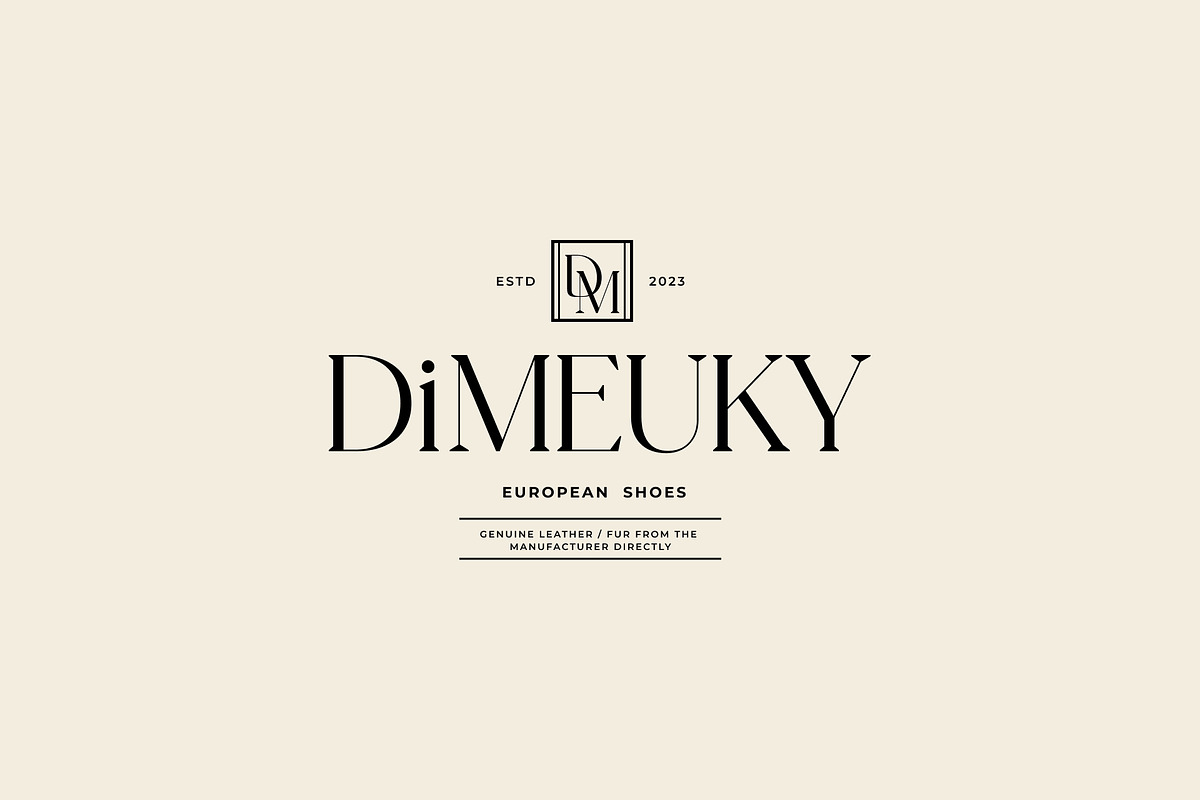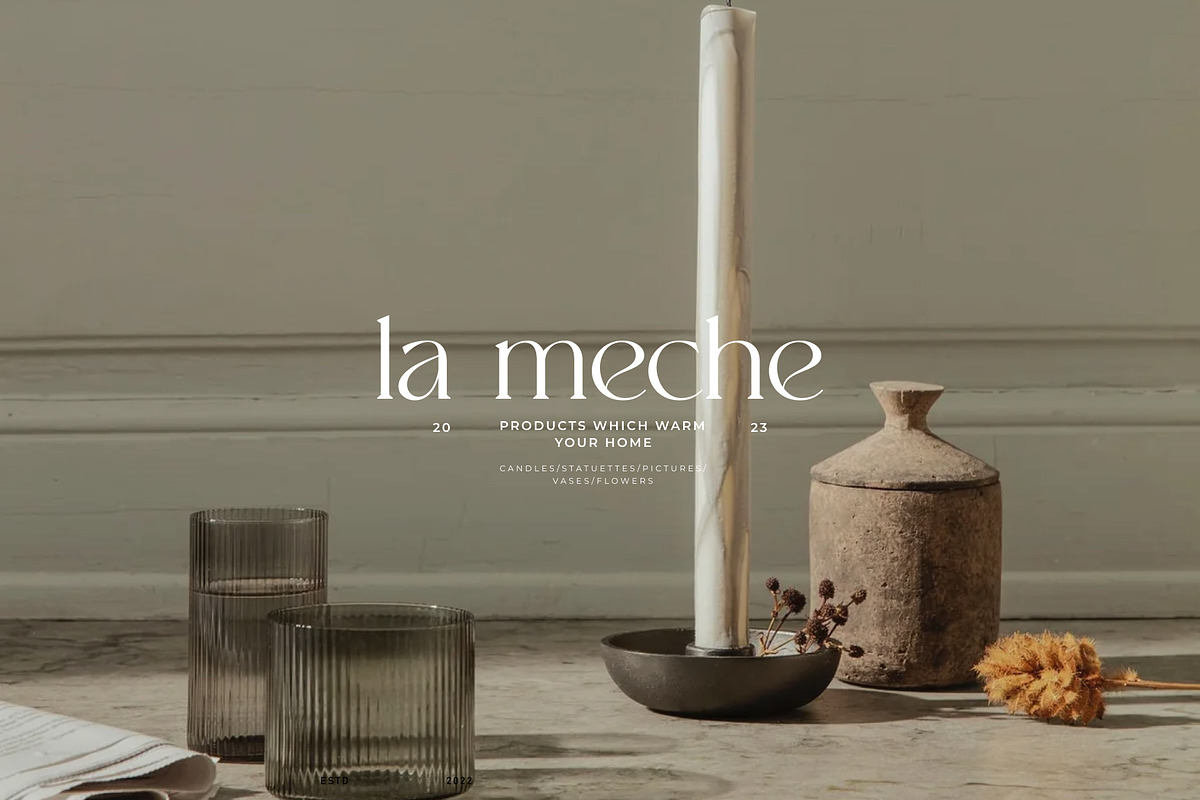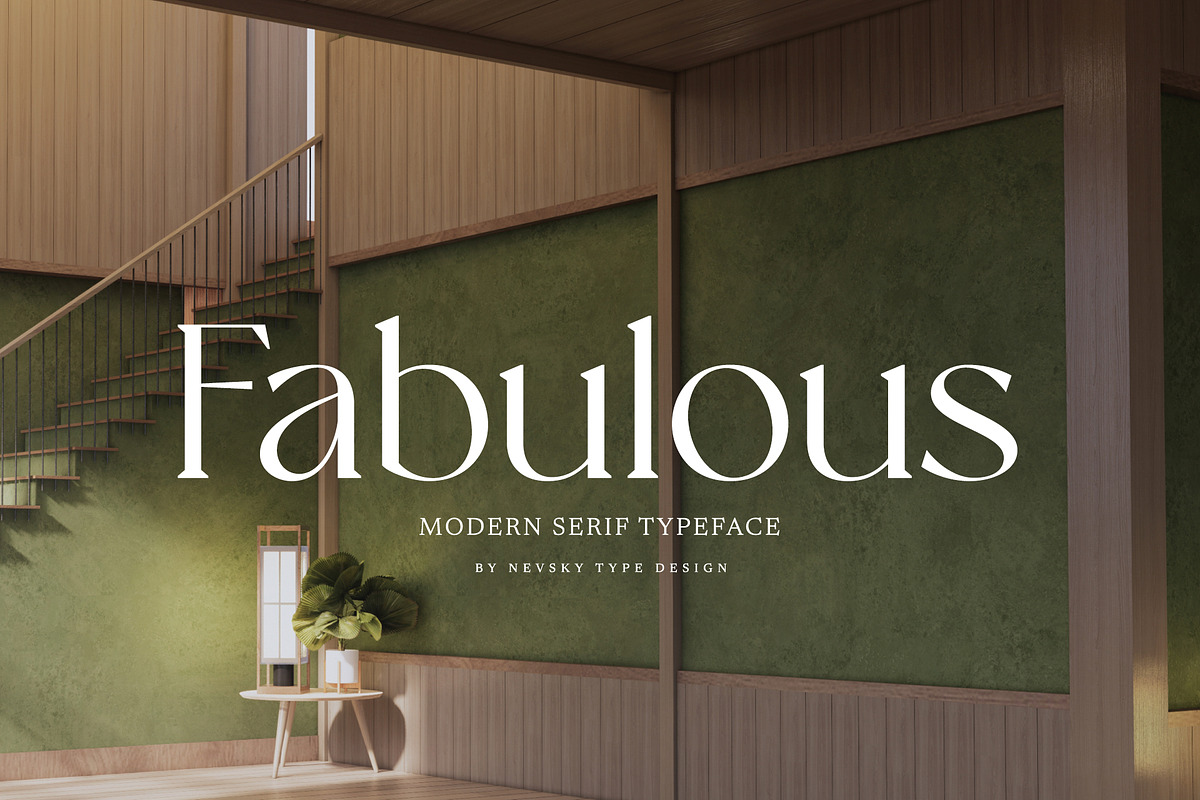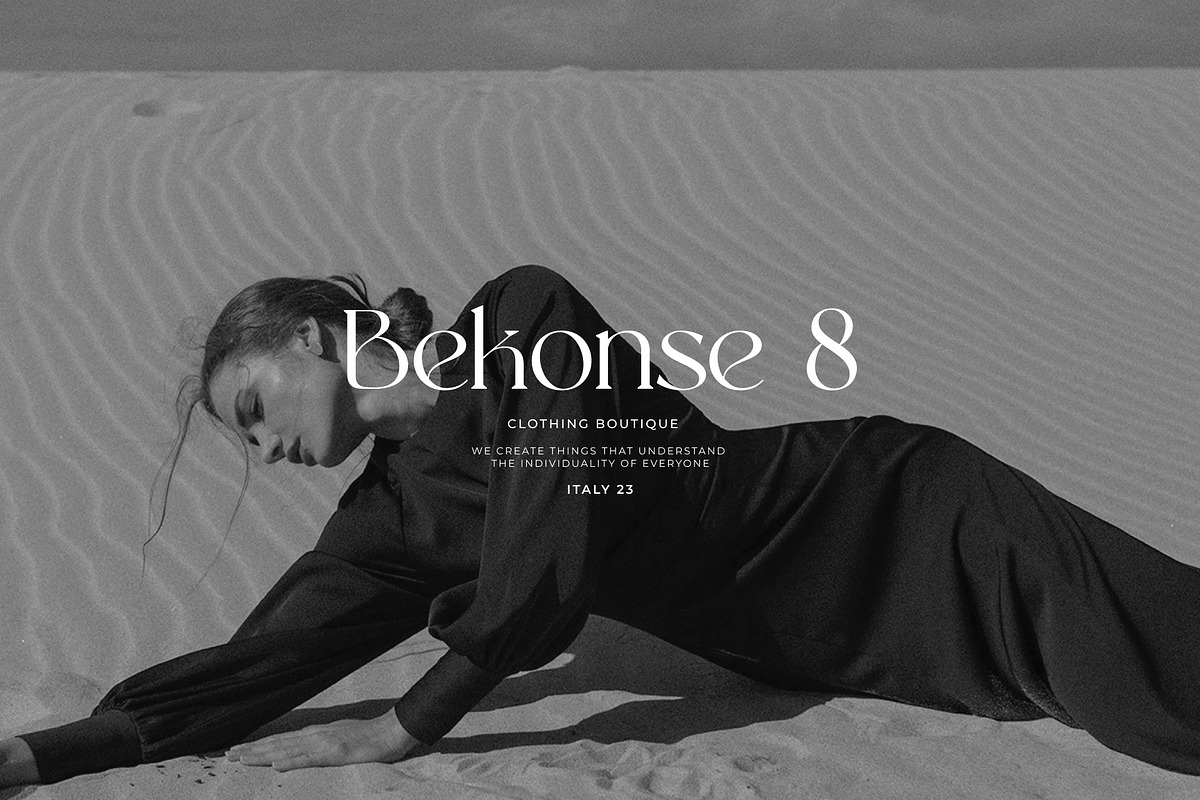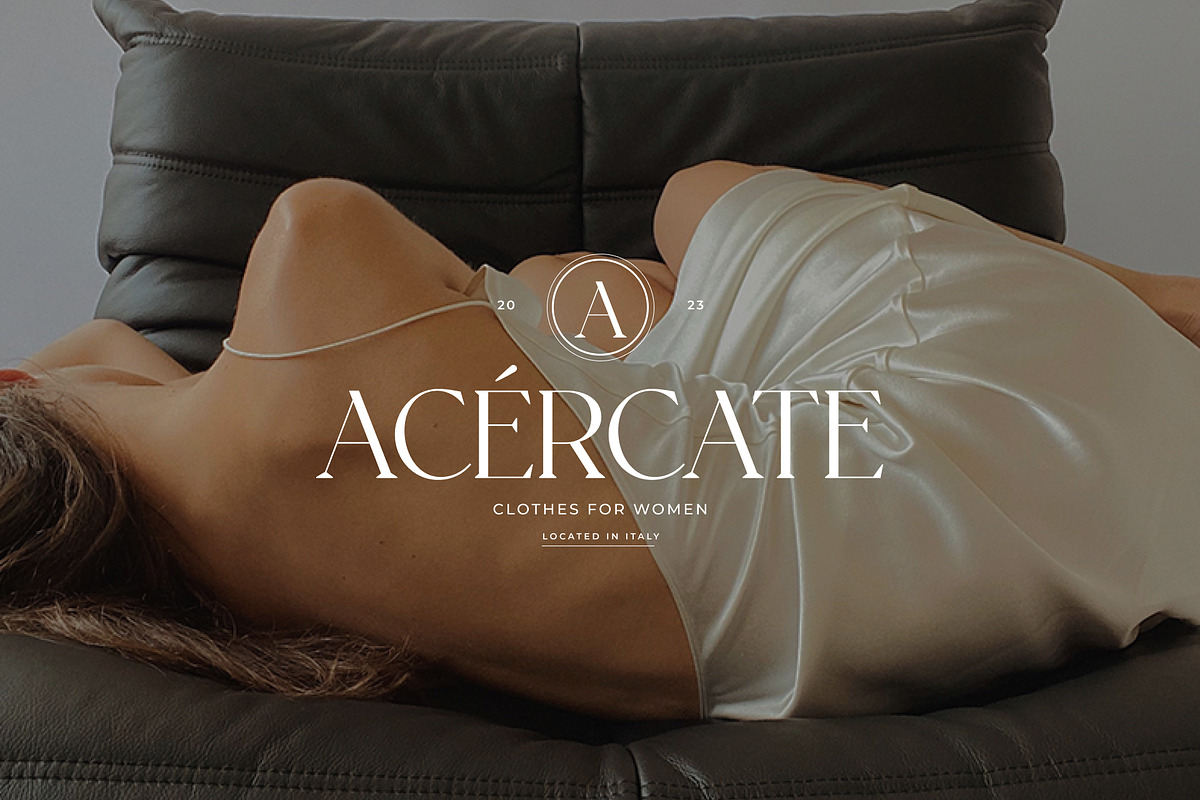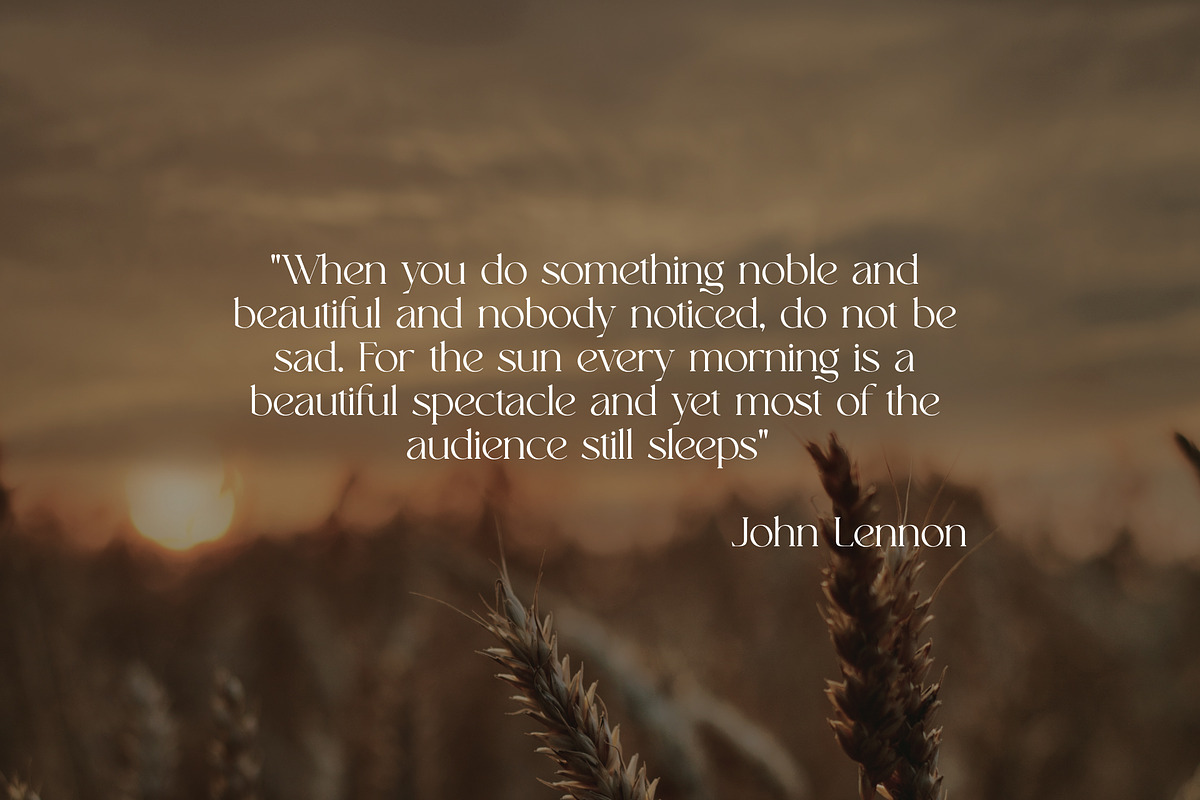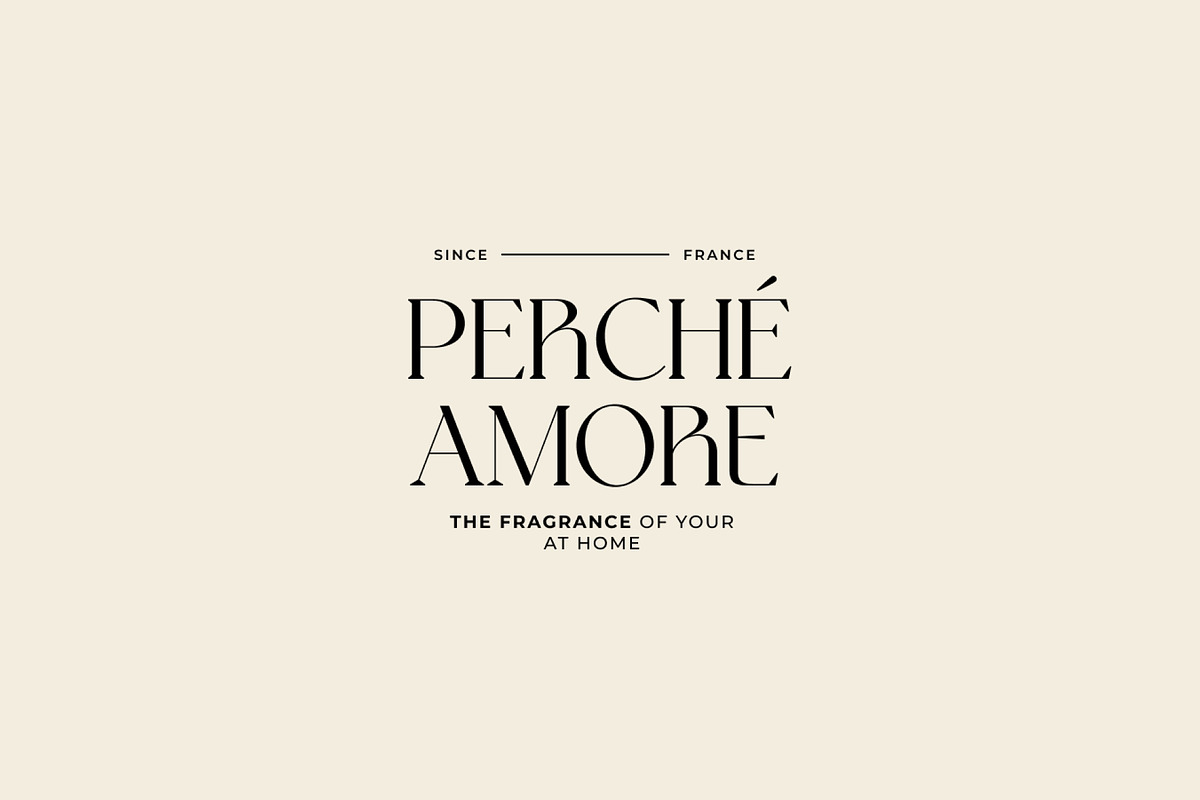
NT Fabulous
NT Fabulous is a new serif font. This elegant font needs to be in your collection and is perfect for your next luxury design project.
NT Fabulous supports over 200 Latin-based languages.